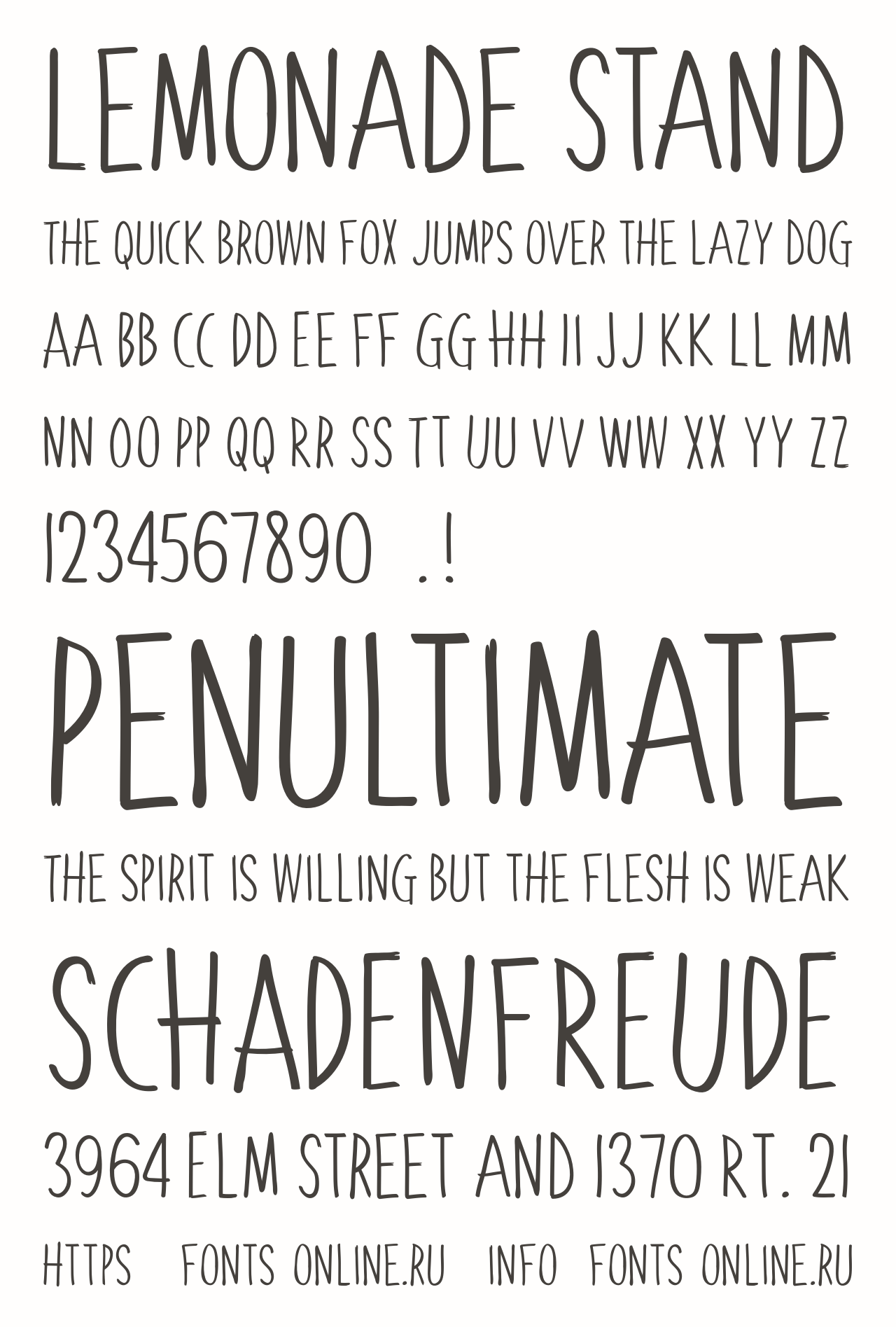
Download Font Lemonade Stand . Lemonade stand font download is available free from fontget. The characters are designed with minimum contrast to roughly resemble the. A great choice for highlighting your design elements. The characters are designed with. A font for the kid in you! The lemonade stand font has been downloaded 29,885 times. Lemonade stand is a free font for personal use created by sharkshock. Lemonade stand is the font for you! Ever wanted a font that looks like it's from a child? Lemonade stand font free download. Lemonade stand is licensed under the 1001fonts free for personal use license (ffp) Lemonade stand is a stylish yet childlike sans serif that doesn’t take itself too seriously. Download and install the lemonade stand font by sharkshock. Lemonade stand is a stylish yet childlike sans serif that doesn’t take itself too seriously. Click now to create a custom image with your own words.
Lemonade stand font download is available free from fontget. Click now to create a custom image with your own words. The characters are designed with minimum contrast to roughly resemble the. Lemonade stand is a script type font that can be. With a silly backwards s, your grandma will think it's from back when. Lemonade stand is a stylish yet childlike sans serif that doesn’t take itself too seriously. The lemonade stand font has been downloaded 29,885 times. Free download of lemonade stand font. Lemonade stand is a stylish yet childlike sans serif that doesn’t take itself too seriously. Lemonade stand font free download.
Download Font Lemonade Stand Lemonade stand font download is available free from fontget. Lemonade stand is a stylish yet childlike sans serif that doesn’t take itself too seriously. Lemonade stand font download is available free from fontget. Click now to create a custom image with your own words. Lemonade stand is the font for you! The characters are designed with. Lemonade stand is a script type font that can be. Lemonade stand is a stylish yet childlike sans serif that doesn’t take itself too seriously. Free download of lemonade stand font. The characters are designed with minimum contrast to roughly resemble the. Lemonade stand is licensed under the 1001fonts free for personal use license (ffp) Download and install the lemonade stand font by sharkshock. The lemonade stand font has been downloaded 29,885 times. A font for the kid in you! A great choice for highlighting your design elements. Lemonade stand is a free font for personal use created by sharkshock.